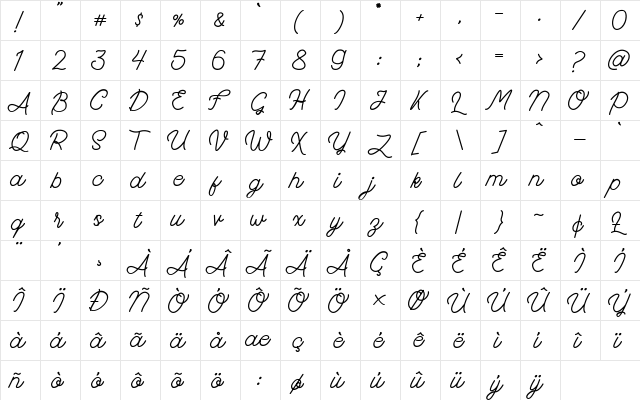
Fad Script Regular
Design Context for Fad Script Typeface
Fad Script brings a calligraphic fluidity to the page — its connecting strokes and expressive curves give it an unmistakably human quality.
Font Pairing: Combine Fad Script with a simple geometric sans for maximum contrast — the tension between flowing curves and clean structure is a classic typographic pairing.
Pro Tip: Use Fad Script for short runs of text — names, titles, or taglines. Extended body copy in script faces tires the eye quickly.